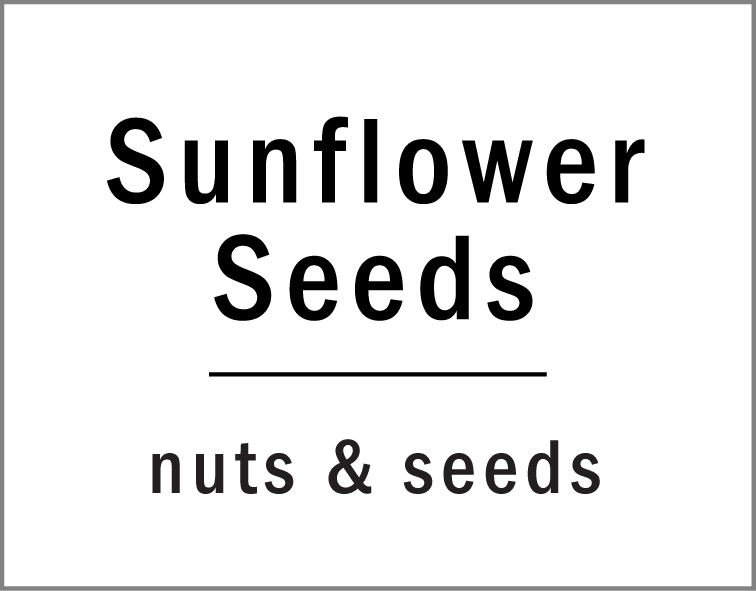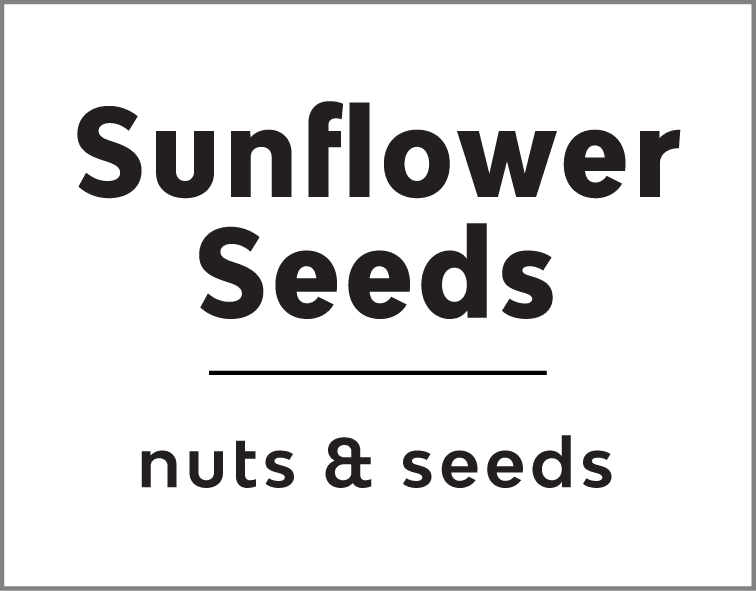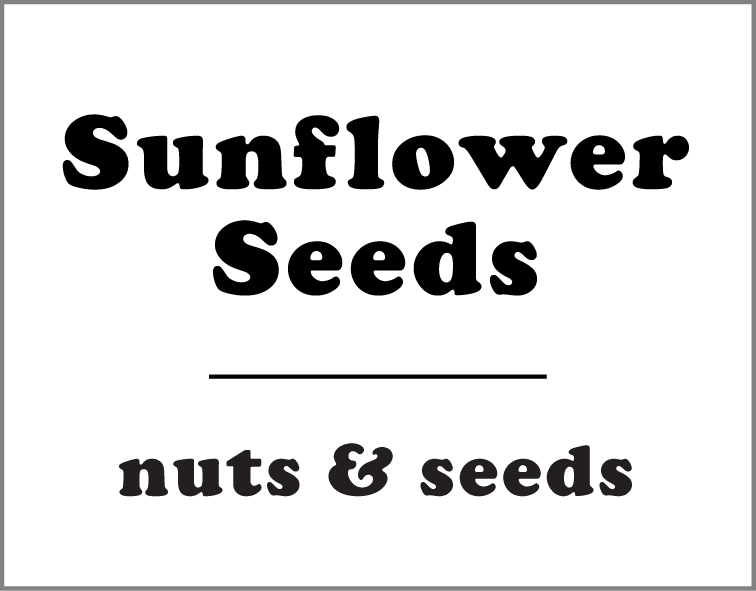
Which font do you like best and why? These will be pre-printed pantry labels for things like flower, sugar, oats, cereal etc.
Option D won this Ranked poll with a final tally of 28 votes after 3 rounds of votes counting.
D | 34% 17 votes | 38% 19 votes +2 | 56% 28 votes +9 |
C | 30% 15 votes | 38% 19 votes +4 | 44% 22 votes +3 |
B | 22% 11 votes | 24% 12 votes +1 | Eliminated 12 votes reassigned |
A | 14% 7 votes | Eliminated 7 votes reassigned |
I think the bolder prints look better and are more attention grabbing.
I like to chose option A. Because the font size is clearly visible. and it is eye-catchy.
The bold definitely catches my attention but I think tok much bold is too much, a is a great balance
I like A the most, for sure. I think the boldness of the main part with the juxtaposition of "nuts & seeds" works well visually.
I like the font of this one the most because I like how one product is put in bolder font that is still a clear font and the other one is a bit smaller but is still easier to see what it is.
The san serif fonts seem cleaner and I think will make the pantry look more organized
I like how the title of A/C are both bold and make them stand out against the words under the bottom. D is my third favorite because the font is dainty, and I like that for my kitchen.
11 Responses to Option B
The thin Sans Serif font on choice B is great. Choice D is nice because it is thin but less nice than the sans seriff.
I prefer option B the most because this print font looks more elegant and classy, it is somehow easier to process and still resonates powerfully without overwhelming label.
I like the simplicity of font in Choice B
Option B most fits my personal aesthetic. I like the thinner, more minimalist font style of B and D. Option C is just ok, option A I dislike the way the ampersand looks.
B- I prefer the thickness and lettering on for it's given use. C- I would choose if B wasn't available, it would be easy to read and it's still nice font. A- I just don't like the "&" symbol in that font. D- i do not like for this use it looks like newspaper
I like B and A because they are easy to read and I think have a modern touch to them. C and D are fine, but they aren't quite as easy to read as B and A.
The San serif font look more modern and less fussy
I would pick option B the font is crisp and easy to read from a distance. I also like the simple design of the font.
Option B is the simplest font and is most easily read. The bolded fonts would seem to be yelling at me from the pantry. Options A, D, and C are either bolded or are more complicated fonts that would not be attractive when there are many of them in use.
I like option B the best, because it seems more minimalistic. Then like option A for the same reasons, but I do not like the heavier font.
B & D over A & C because I like the thinner font more than the thicker font. B first because it's san serif. A over C because it's also a san serif.
15 Responses to Option C
Option C seems to be the cuter font
C has the most inviting and warm display that shows a higher progression of detail.
I like the font very much and it’s is attractive
Options C and D are the most eye catching.
C felt the most bold and strong to me. My eye went to it right away. It just stood out for me. D had a more simplistic look, but I liked the minimalism of it. B and A were nice but they both felt a bit safe to me.
I liked the font style for option C the most. Followed by A. Option D, was okay. Option B, just looked a bit too thin in terms of font style.
I like the bold and cutesy fonts the best.
I voted in order of how easily readable they were to my eye.
My favorite is Option D font because it`s stylish, elegant and appealing, and not aggressive. My second best is Option A which is a bit more noticeable but still tasteful. Other options follow in the mentioned order.
Option D is the best because the font looks classy.